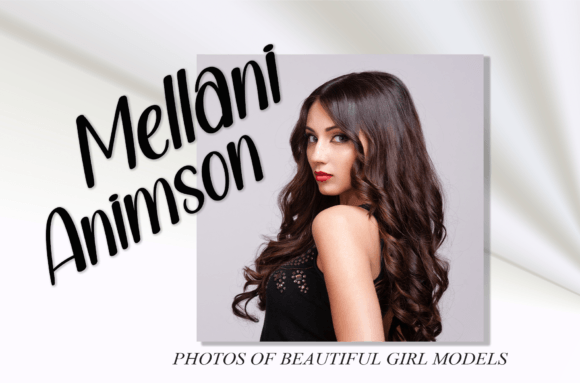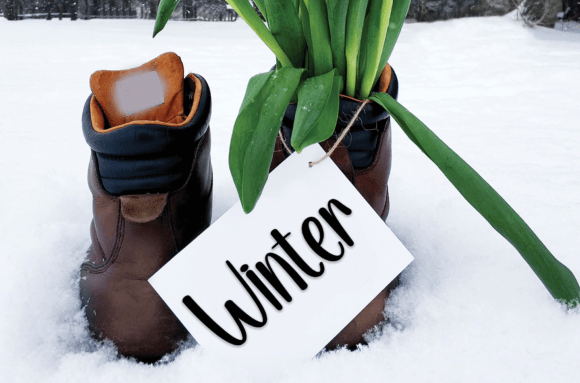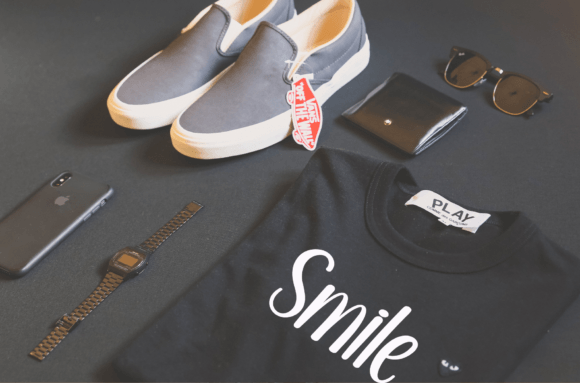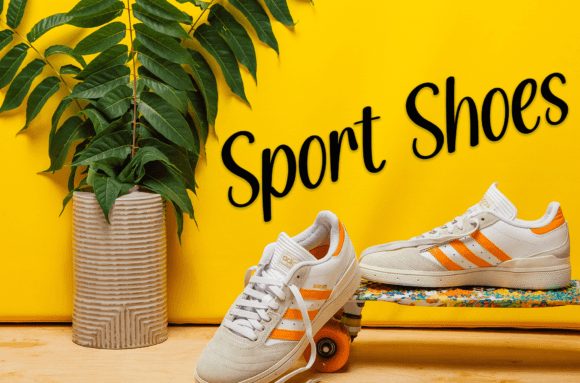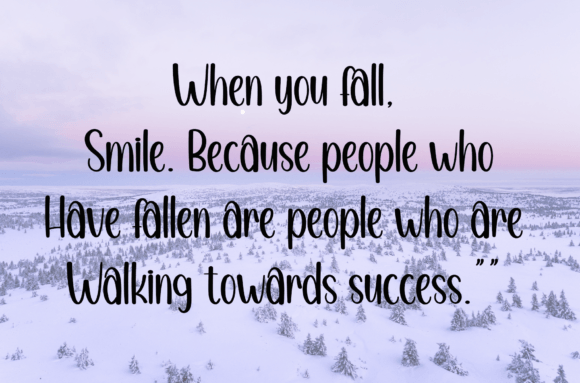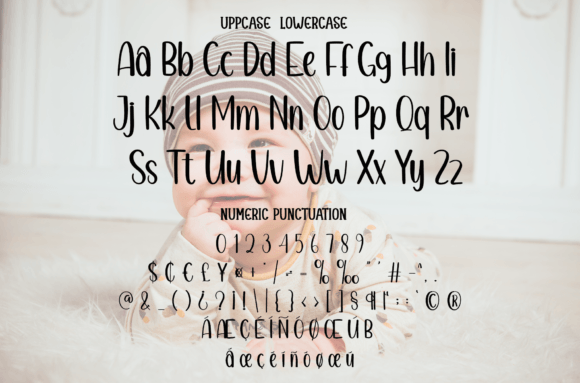
Introducing Cheeks Font: The Sweet and Friendly Handwritten Font for Your Design Needs
Are you looking for a font that can add a touch of sweetness and friendliness to your designs? Look no further than Cheeks Font! This beautiful handwritten font is perfect for creating wedding invitations, cards, and other designs that require a fun and playful touch. In this article, we’ll take a closer look at Cheeks Font, its features, and how you can use it to elevate your designs.
What is Cheeks Font?
Cheeks Font is a sweet and friendly handwritten font that’s perfect for adding a personal touch to your designs. Its fresh and neat style makes it ideal for a variety of design projects, from wedding invitations and cards to social media graphics and more. The font’s playful and whimsical feel is sure to capture the attention of your audience and leave a lasting impression.
Key Features of Cheeks Font
- Handwritten style: Cheeks Font has a beautiful handwritten style that’s perfect for creating personal and unique designs.
- Sweet and friendly feel: The font’s sweet and friendly feel makes it ideal for designs that require a playful touch.
- Fresh and neat: Cheeks Font is fresh and neat, making it perfect for designs that require a clean and modern look.
- Versatile: The font is versatile and can be used for a variety of design projects, from wedding invitations to social media graphics.
Use Cases for Cheeks Font
Cheeks Font is perfect for a variety of design projects, including:
- Wedding invitations: The font’s sweet and friendly feel makes it perfect for creating beautiful and unique wedding invitations.
- Cards: Cheeks Font is ideal for creating greeting cards, birthday cards, and other types of cards that require a personal touch.
- Social media graphics: The font’s playful and whimsical feel makes it perfect for creating social media graphics that require a fun and playful touch.
- Branding: Cheeks Font can be used for branding projects that require a friendly and approachable feel.
Tips for Using Cheeks Font
Here are some tips for using Cheeks Font in your designs:
- Pair it with a bold font: Pair Cheeks Font with a bold font to create a beautiful contrast and add visual interest to your design.
- Use it for headings: Use Cheeks Font for headings and titles to add a playful touch to your design.
- Experiment with colors: Experiment with different colors to find the perfect combination that works with Cheeks Font.
Cheeks Font is a beautiful and versatile handwritten font that’s perfect for adding a sweet and friendly touch to your designs. Its fresh and neat style makes it ideal for a variety of design projects, from wedding invitations to social media graphics. With its playful and whimsical feel, Cheeks Font is sure to capture the attention of your audience and leave a lasting impression. So why not give it a try and see how it can elevate your designs?